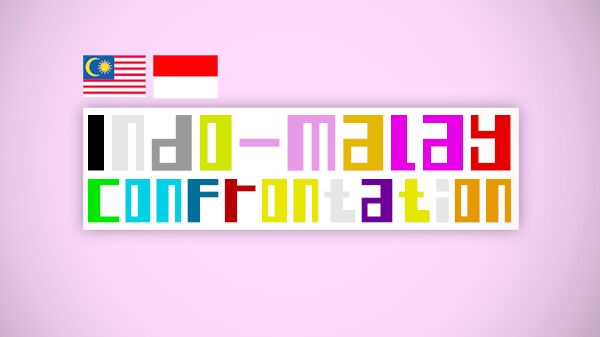
Indo-Malay Confrontation by Adien Gunarta is a free techno display font with broad, squared lettering and a stark machine-cut profile. The uneven letter widths give its silhouette a restless, coded look.
Retro-futurist entertainment is its clearest setting, especially arcade posters, electronic music covers, and science-fiction title cards that draw on the font's severe geometry and screen-like forms of vintage electronic hardware. It also suits gaming merchandise and technology event branding, linked by the same control-panel shapes and compact industrial character.